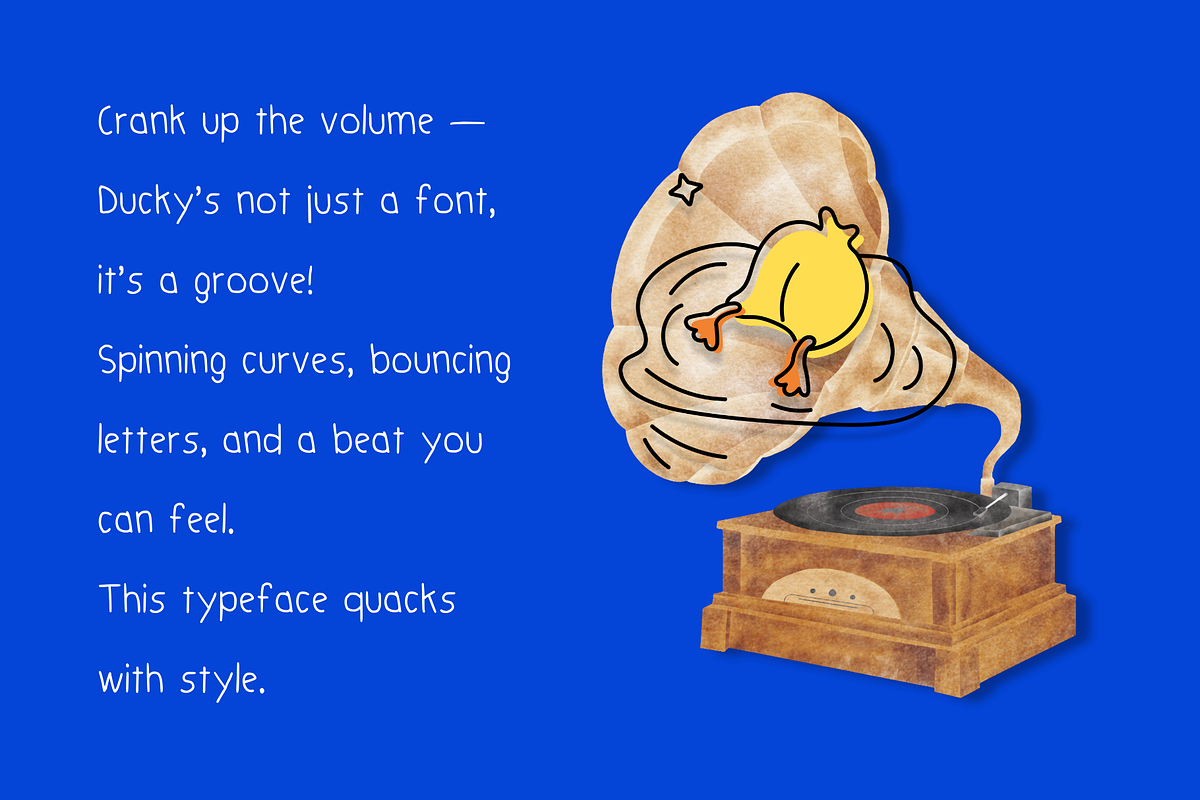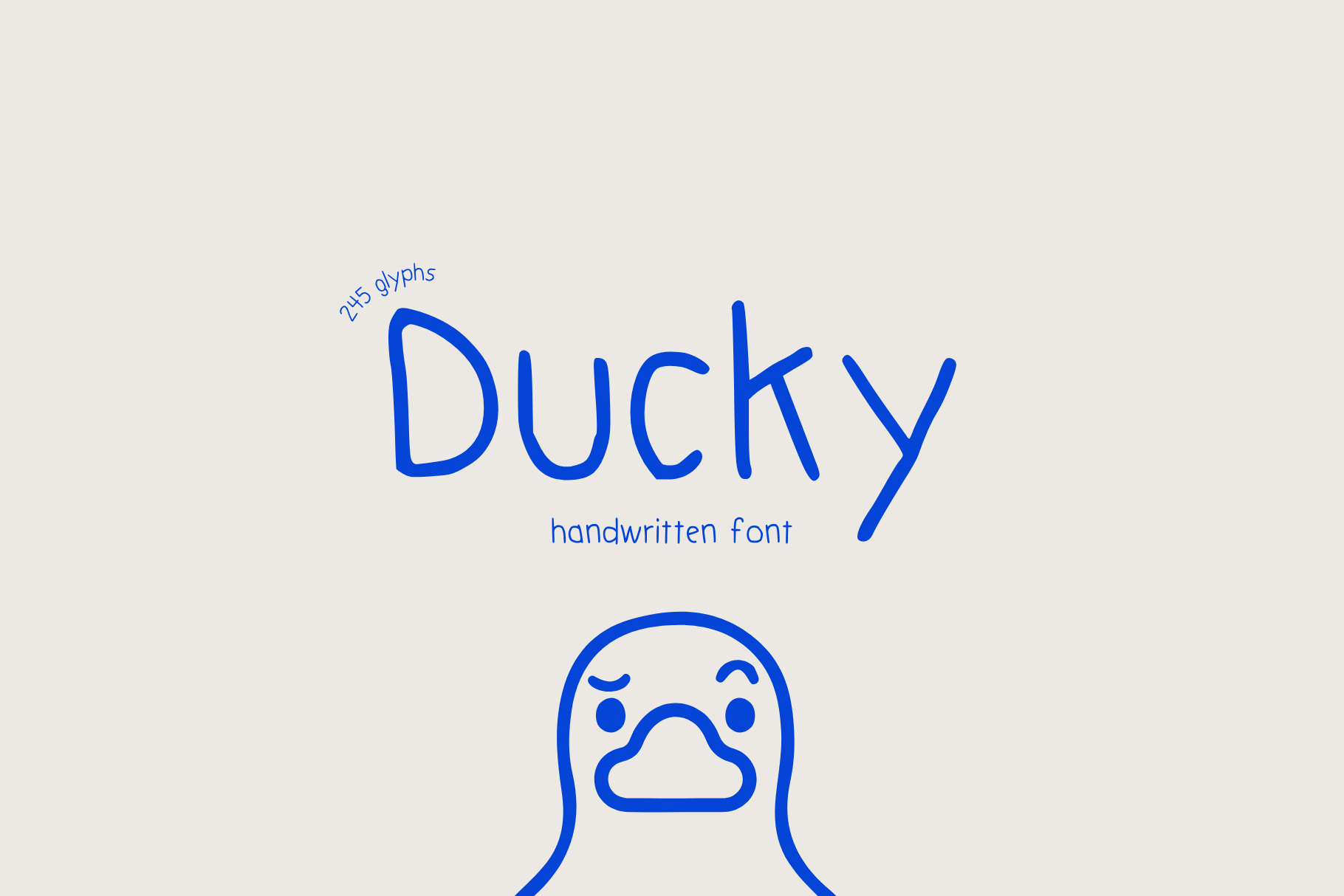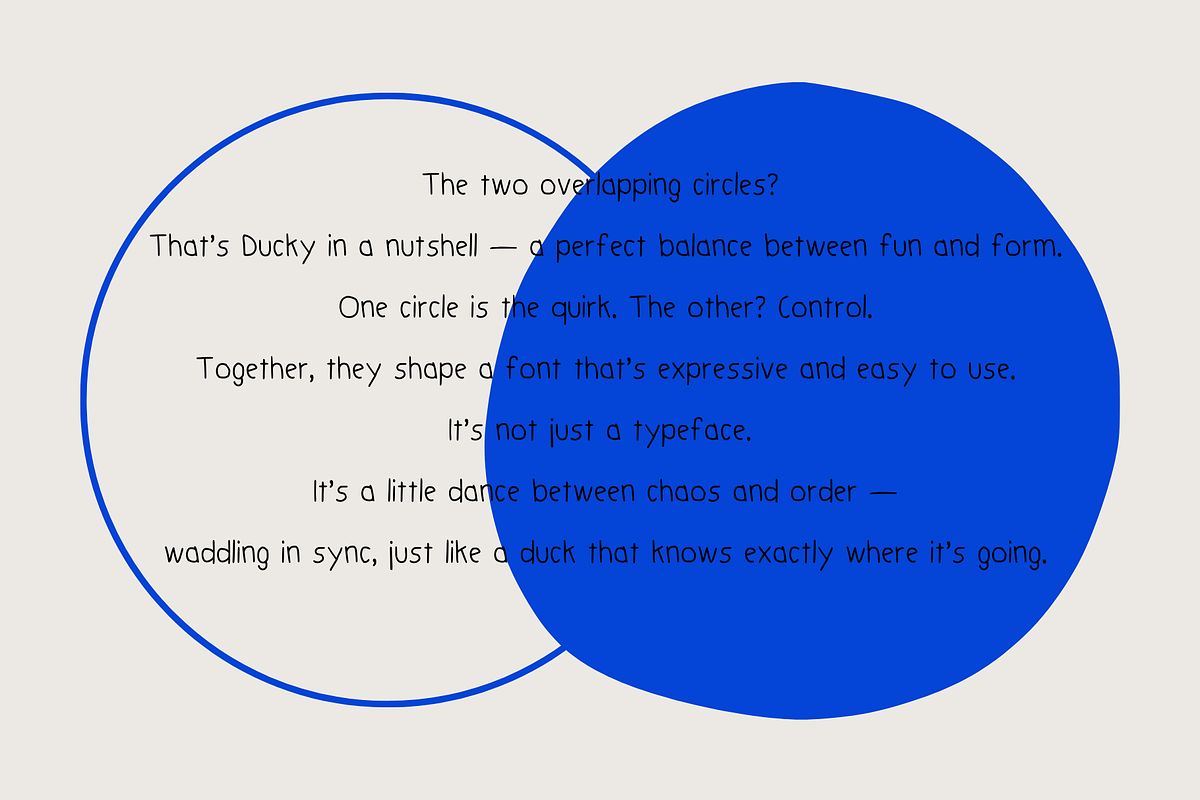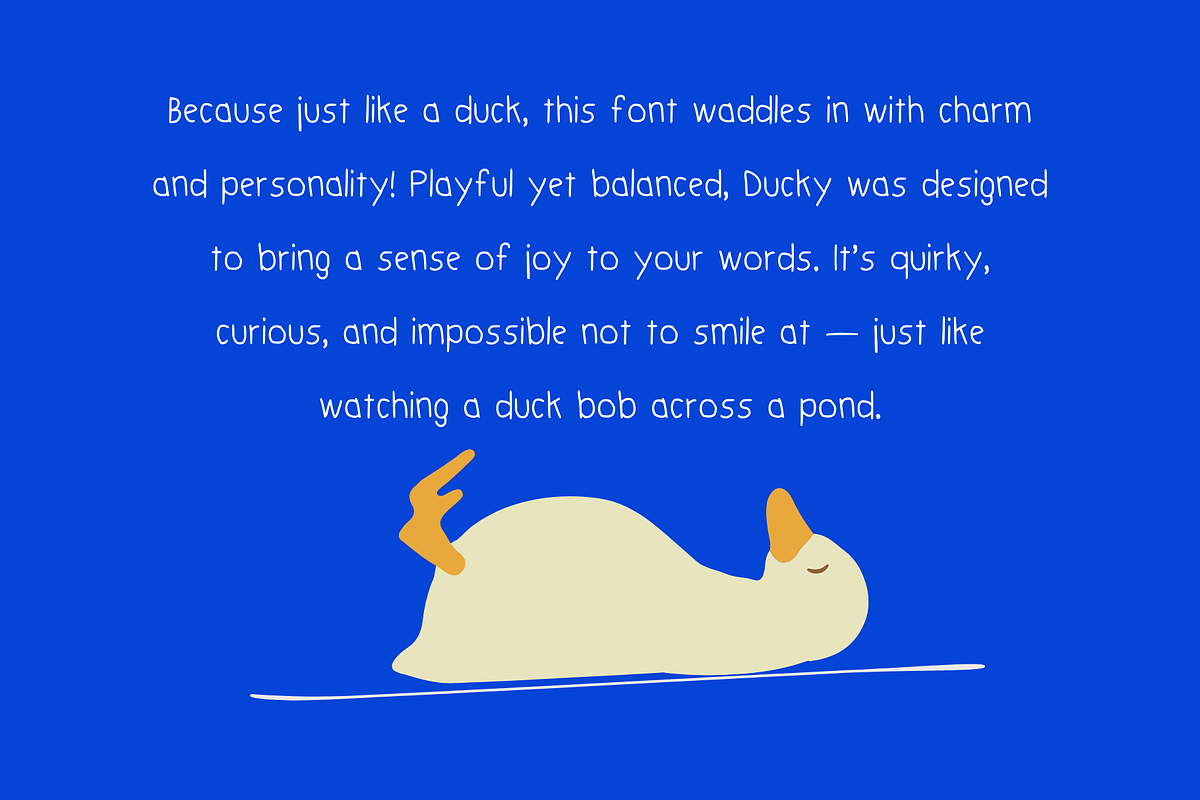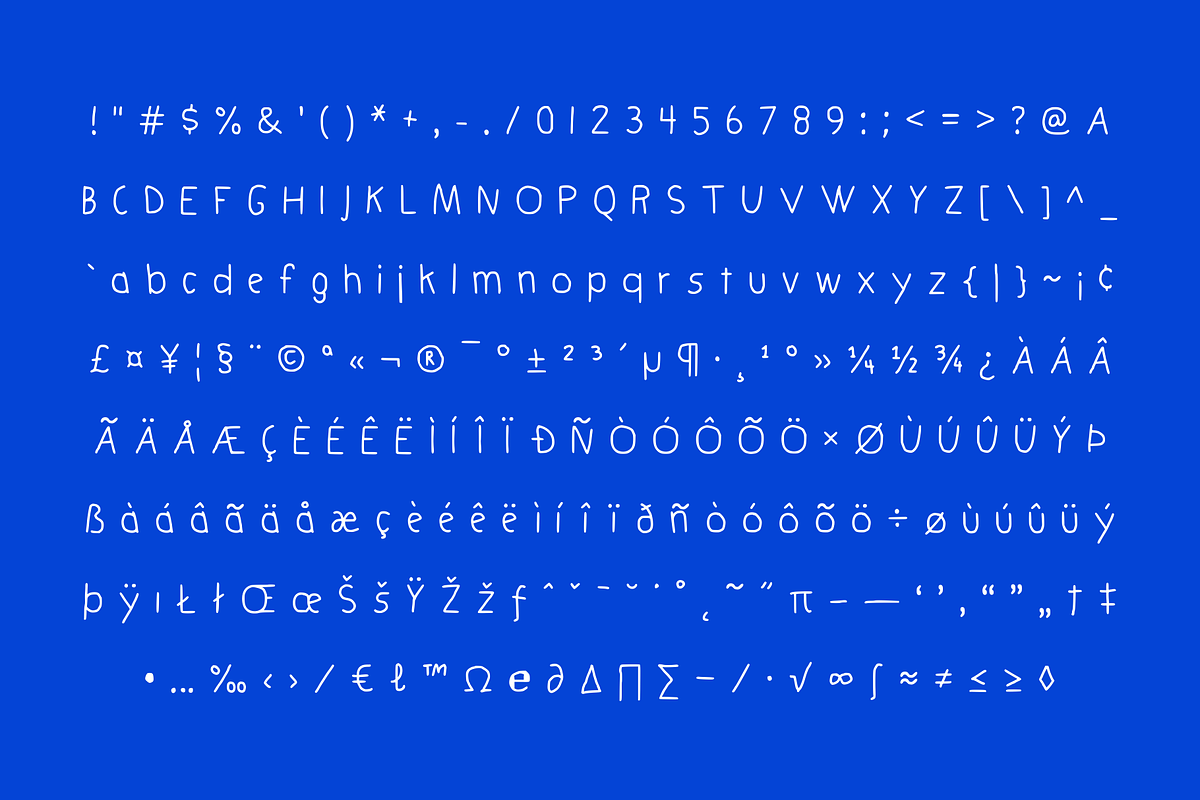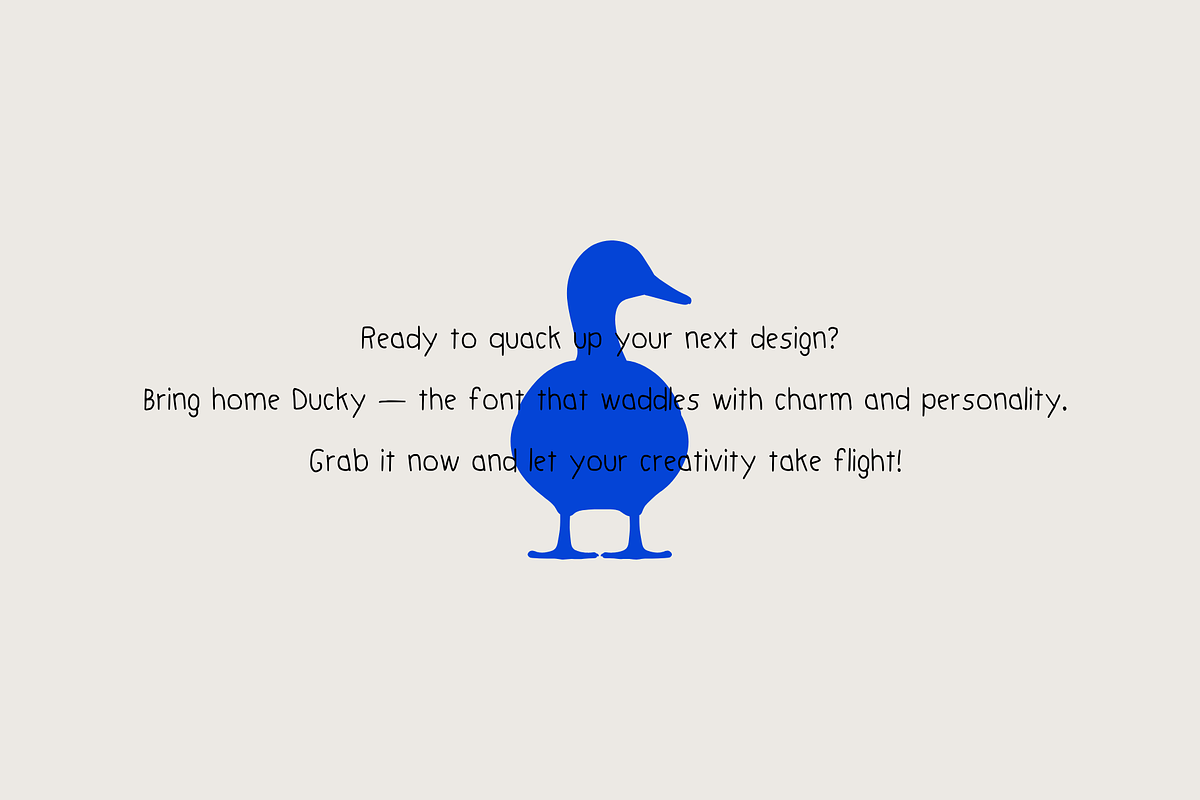
Ducky – A Playful Handwritten Font
Meet Ducky – a cute, playful handwritten font full of personality! With its soft, quirky lines inspired by the charm of little ducks, Ducky is perfect for kid-friendly designs, stickers, logos, branding, quotes, posters, and anything that needs a fun and friendly vibe. Whether you're designing in Procreate, Canva, or any design software, Ducky brings a touch of whimsy to your work.
This font is ideal for: ✔ Kids and baby-themed projects ✔ Kawaii and aesthetic vibes ✔ Fun logos and branding ✔ Journals, planners, and scrapbooking ✔ Social media content, invitations & more